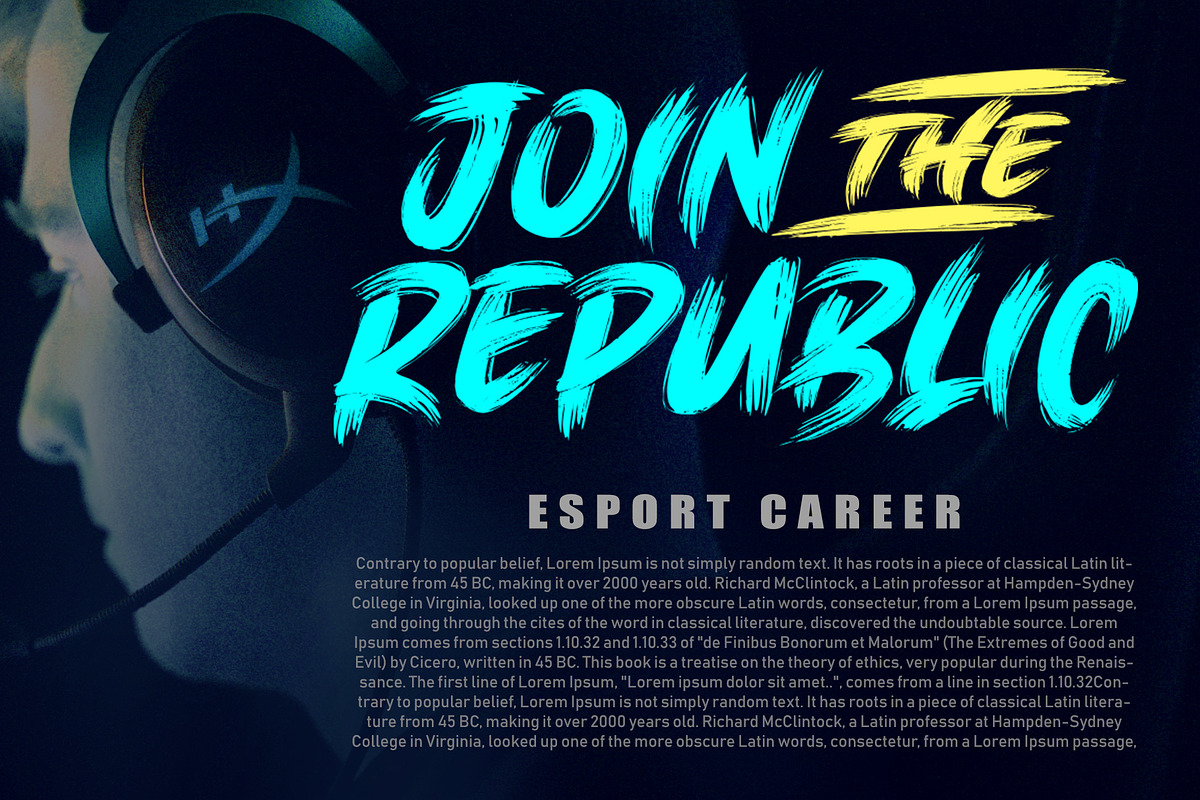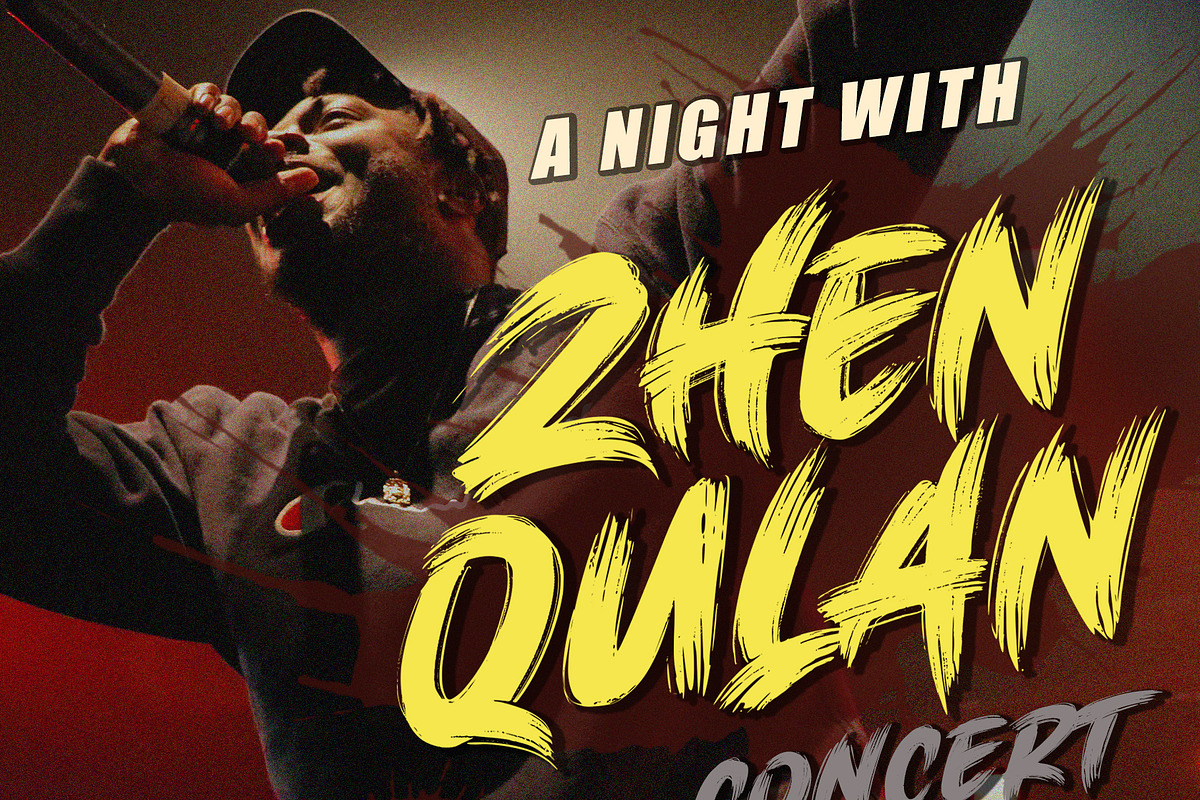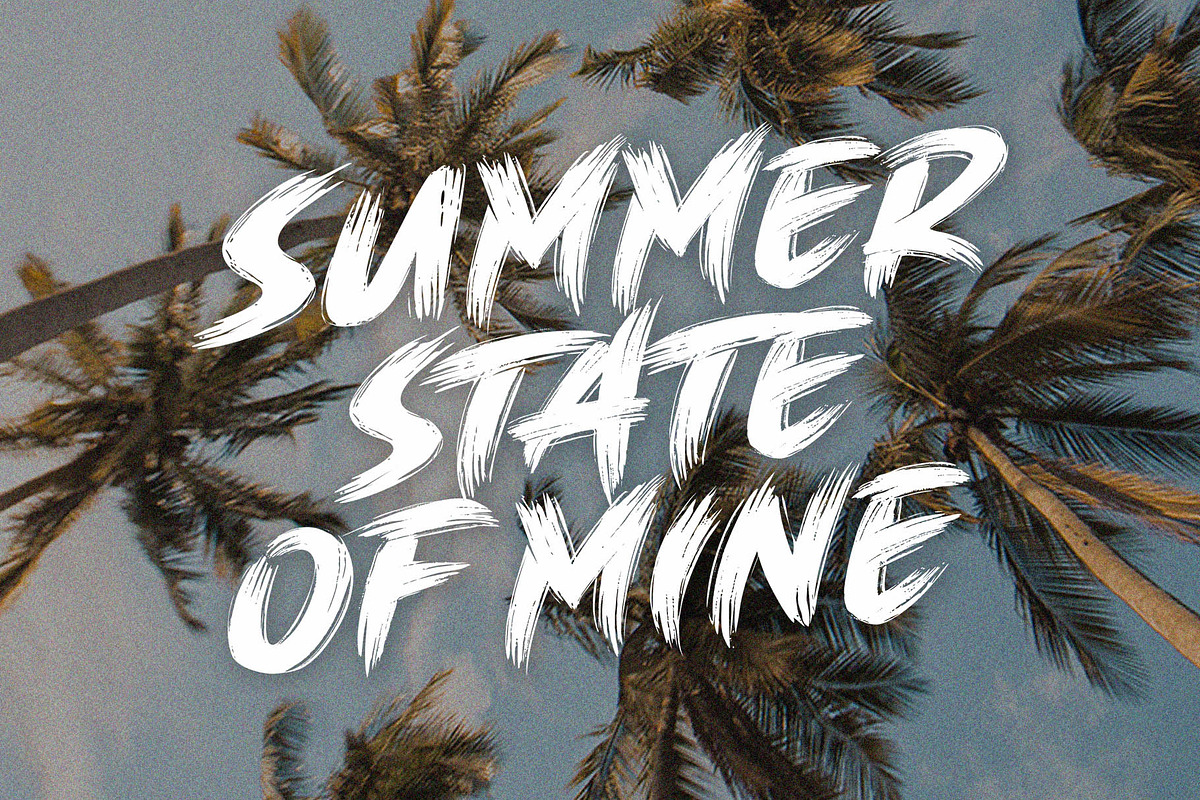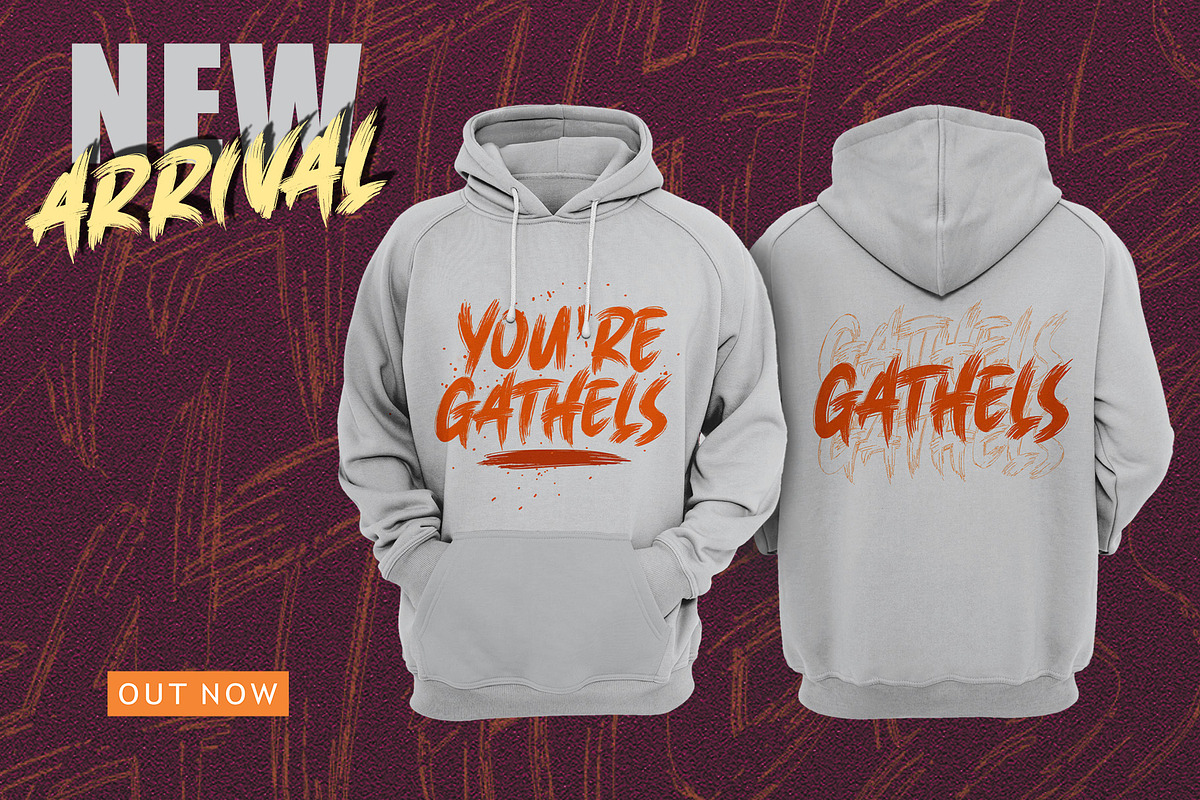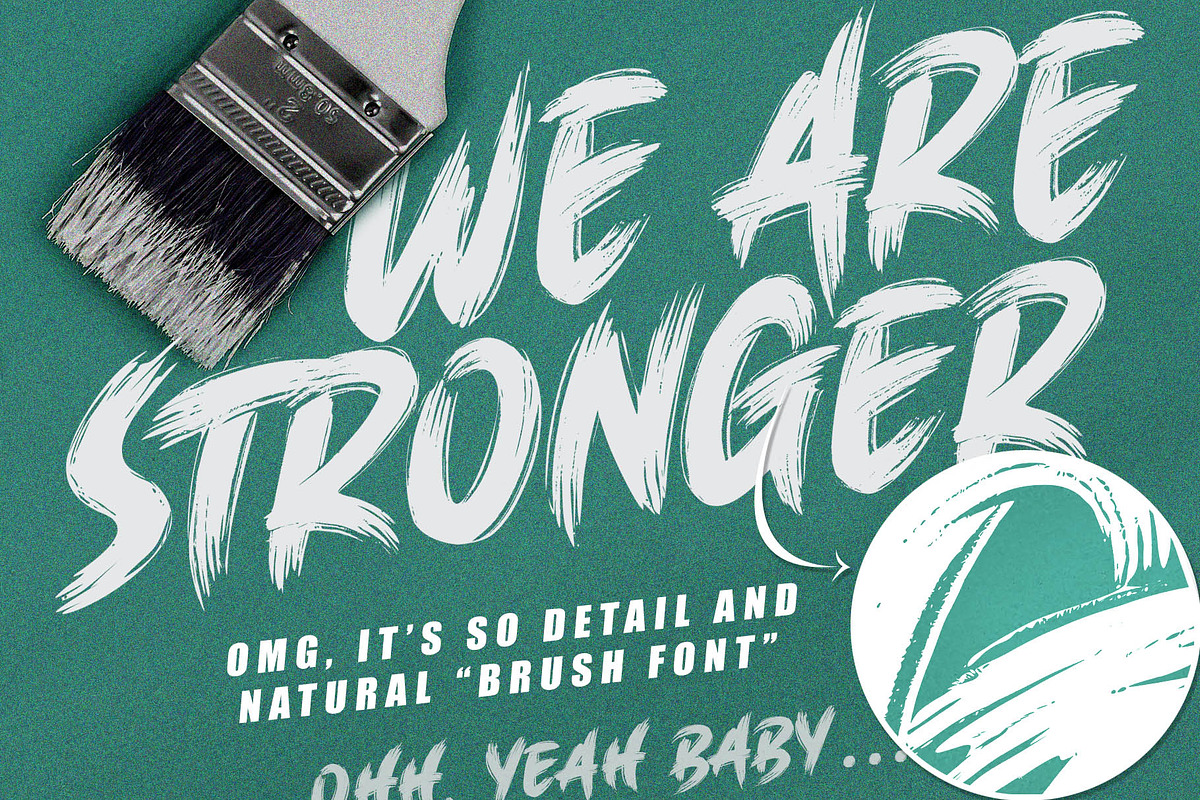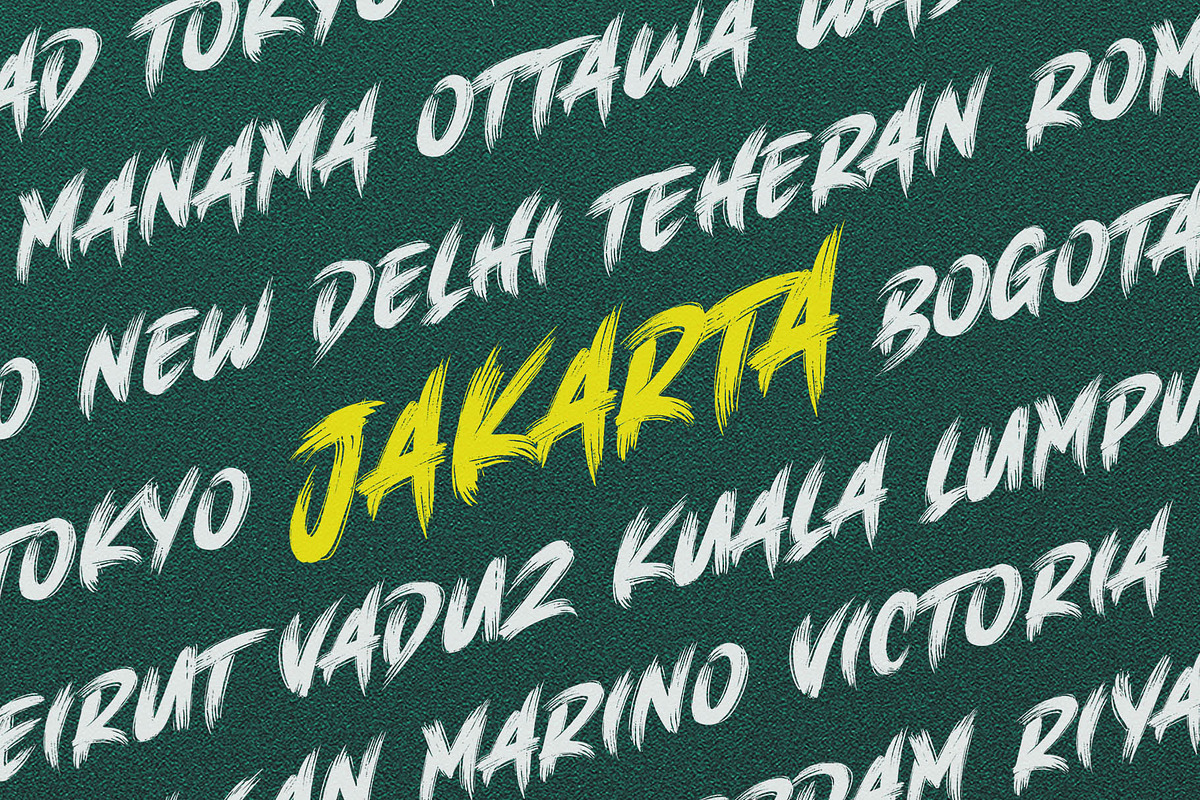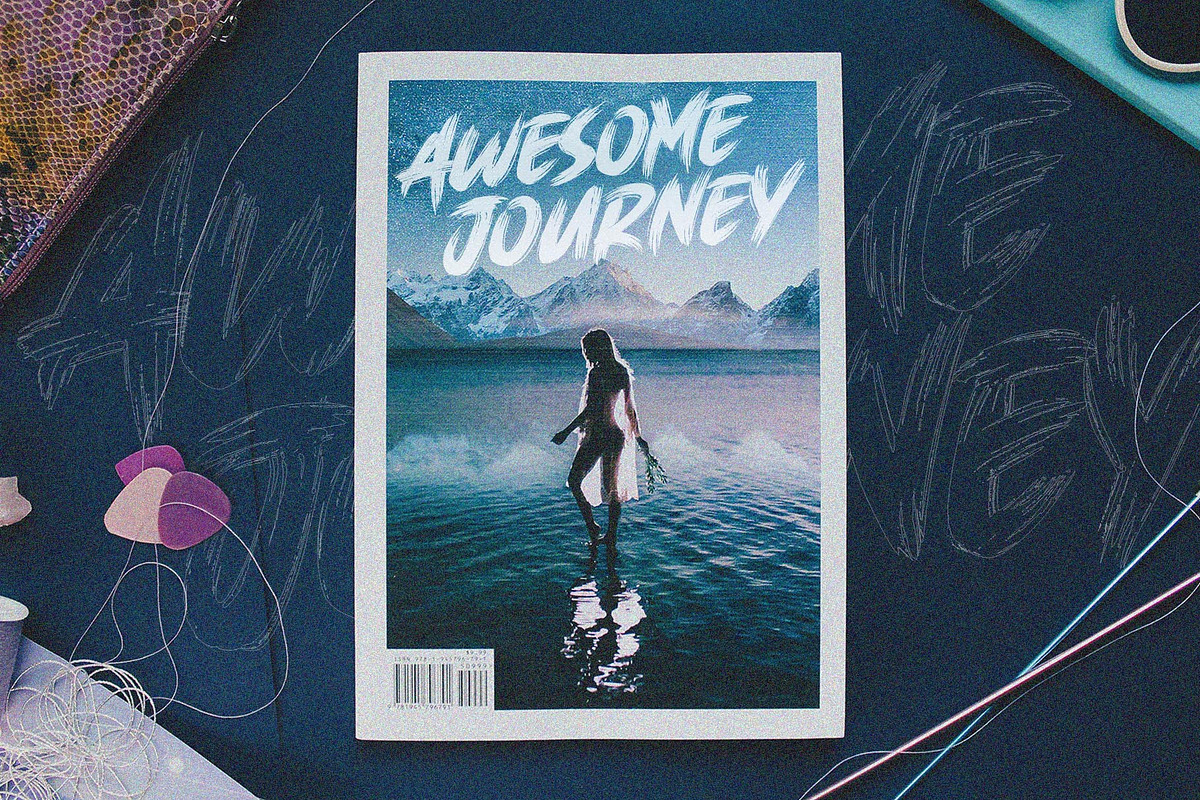
SALE! BRUSH KING / Brush Font
Brush King font is a supercharged brush font style, street-wise brush font bursting with energy. With extra attention to quick strokes and sharp details. This font is perfect for challenging jobs, titles, t-shirts, websites, hoodies, and various print and digital media with energy. Brush King is ideal for logos, apparel, quotes, product packaging, or anything which needs a typographic turbo-boost.